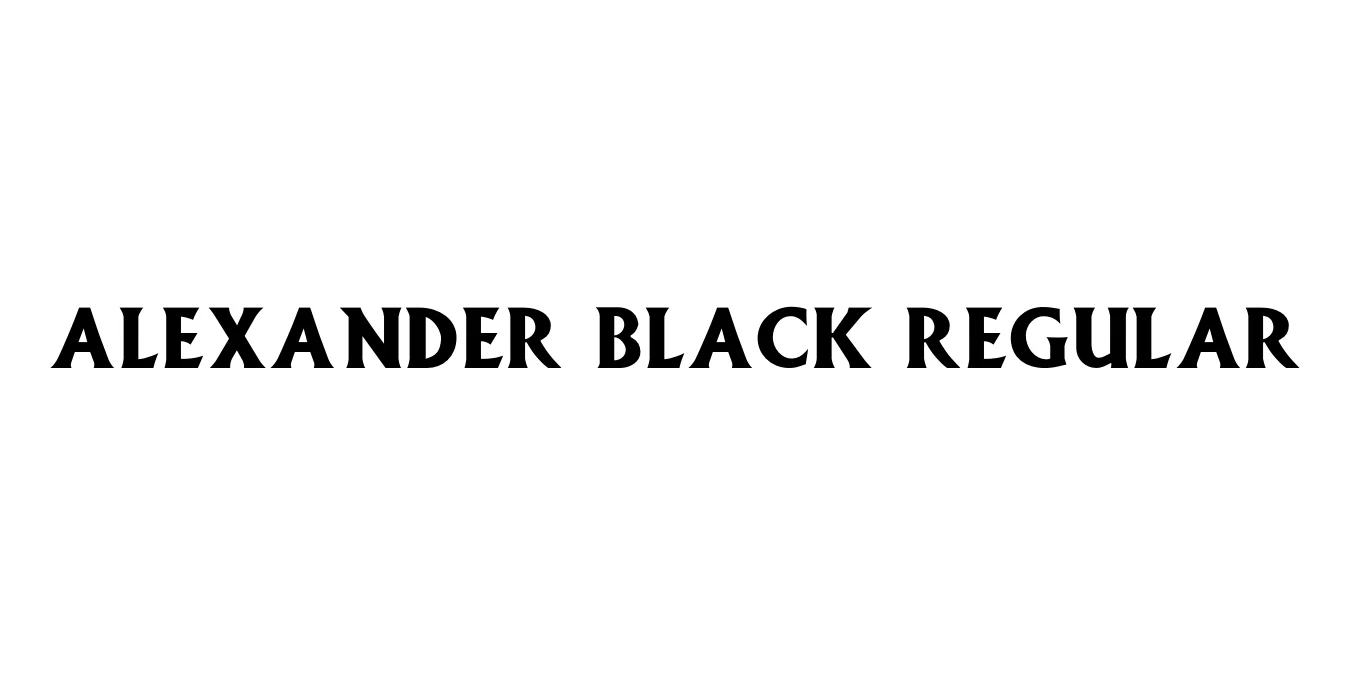
Alexander Black Regular
Designed by Zulhelman
| Font Name | Alexander Black |
| Category | Serif / Display |
| Designer | Zulhelman |
| Similar Fonts | Playfair Display Black, Bodoni MT, Georgia Bold |
Alexander Black Regular is a sophisticated and bold serif typeface that embodies a fusion of classical elegance and contemporary strength. The font is characterized by its high contrast between thick and thin strokes, creating a striking visual rhythm that demands attention. Its meticulously crafted serifs and balanced letterforms make it an ideal choice for designers looking to convey authority and timelessness in their projects.
Developed with a focus on versatility and high-end aesthetics, Alexander Black Regular excels in large-scale applications such as headlines, posters, and luxury branding. While its roots are firmly planted in traditional typography, its clean execution allows it to perform beautifully in modern digital environments, ensuring that every character remains legible and impactful across various media platforms.
Alexander Black Regular Best Uses
Ideal for luxury fashion brands and high-end corporate identities.
Perfect for magazine covers, book titles, and impactful feature headlines.
Excellent for posters and digital banners requiring a strong visual presence.